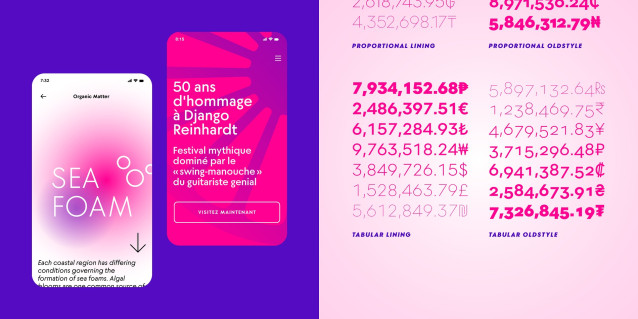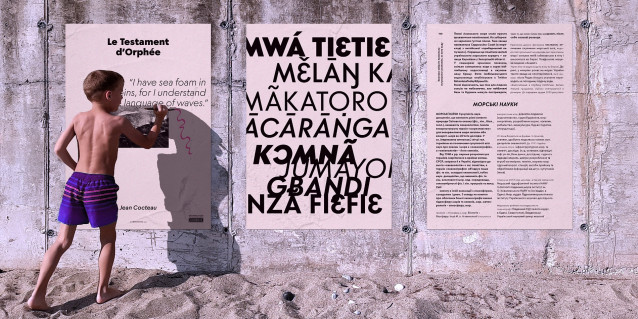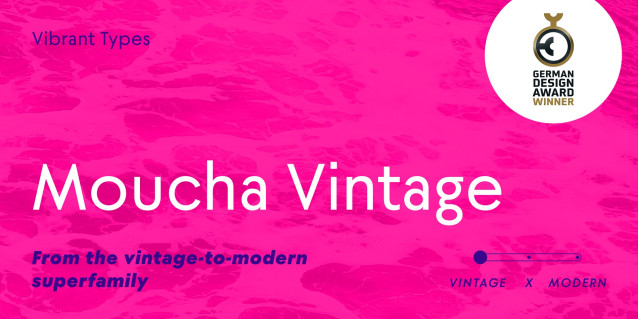
Moucha Vintage Font Family
Moucha Vintage Font Family is a geometric typeface family with a rhythmic typesetting. The narrow ‘n’ and Roman square capitals give it a classic appeal. It is part of the Moucha vintage-to-modern superfamily, which received the German Design Award 2024 for its many variants. It supports 890 Latin, Cyrillic, and Greek languages.
How the superfamily works: All variants share the same round characters while rectangle-based characters vary in width. Do you want Moucha Vintage’s dynamic, classic look with a narrow ‘n’ like you know from prototypes like Futura®? Or do you prefer Moucha Modern’s homogenous contemporary feel? Use the balanced Moucha X for a solid middle ground.